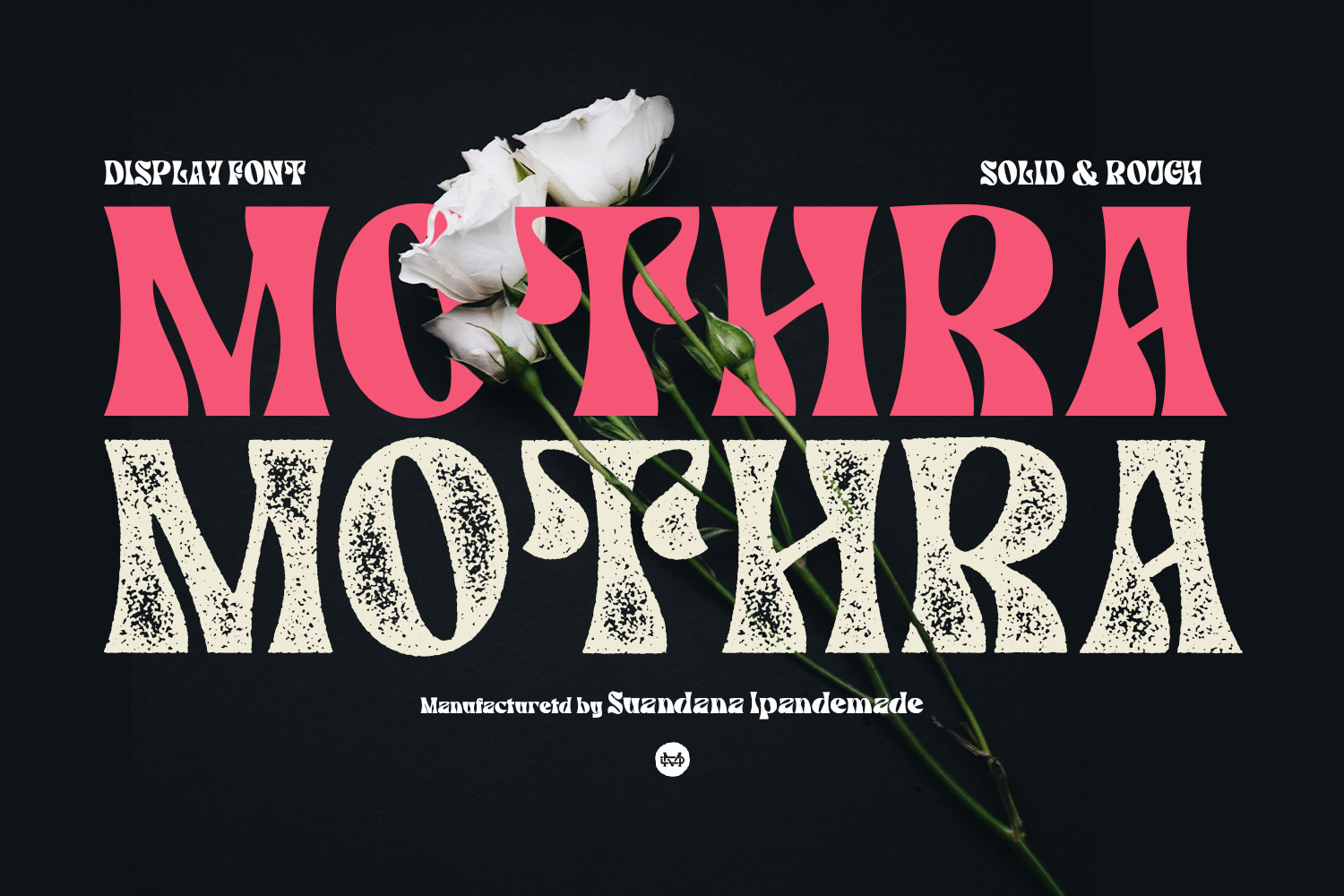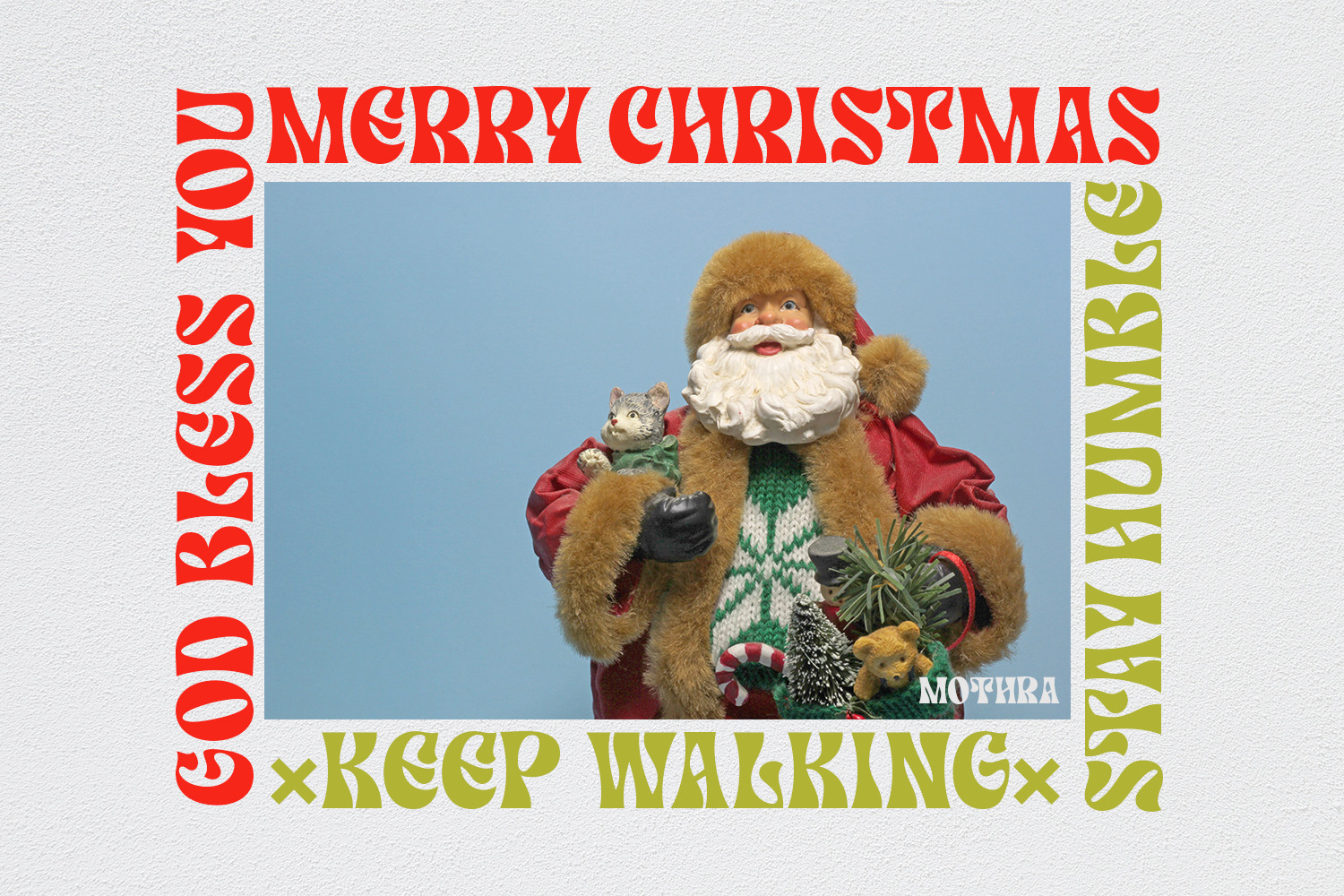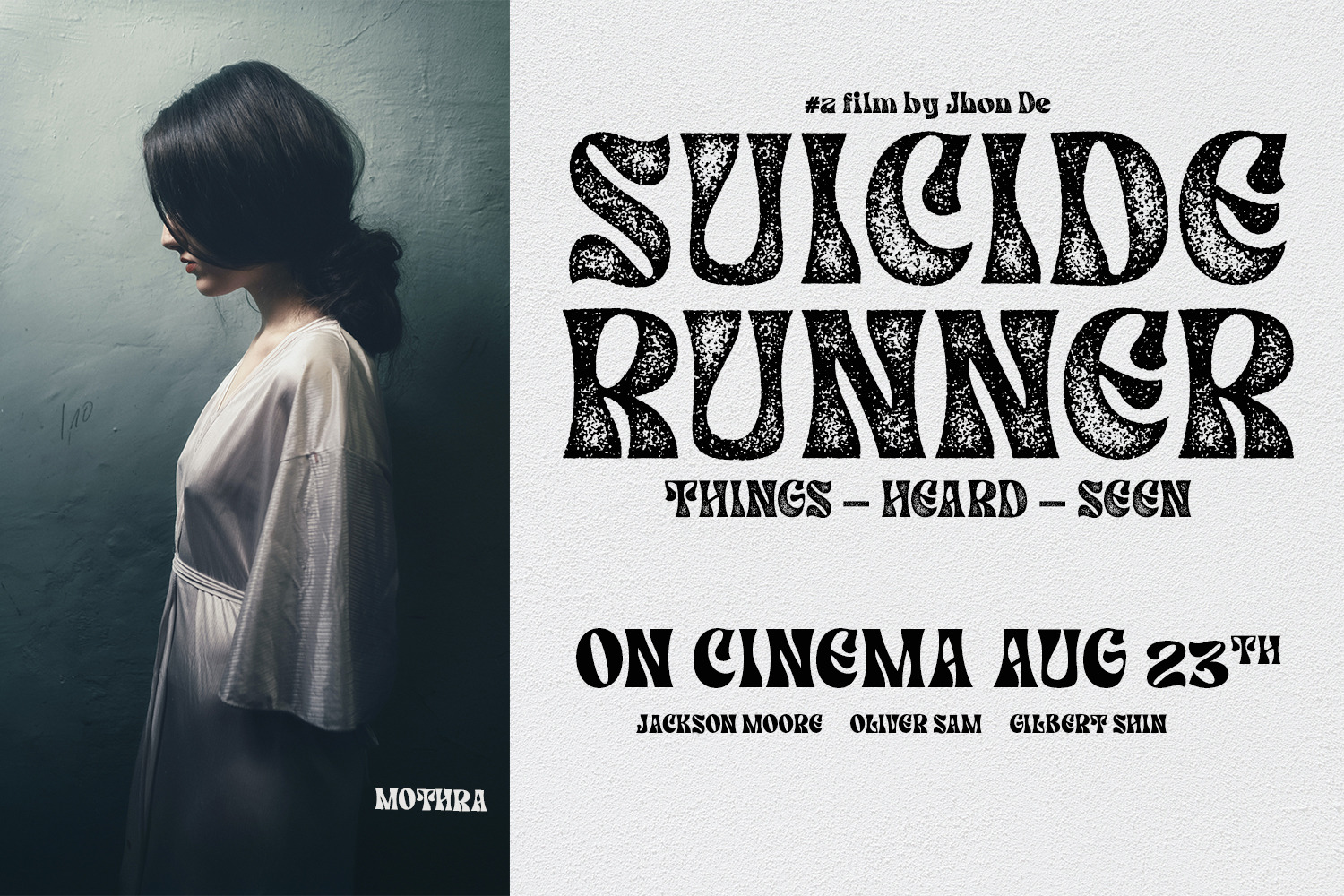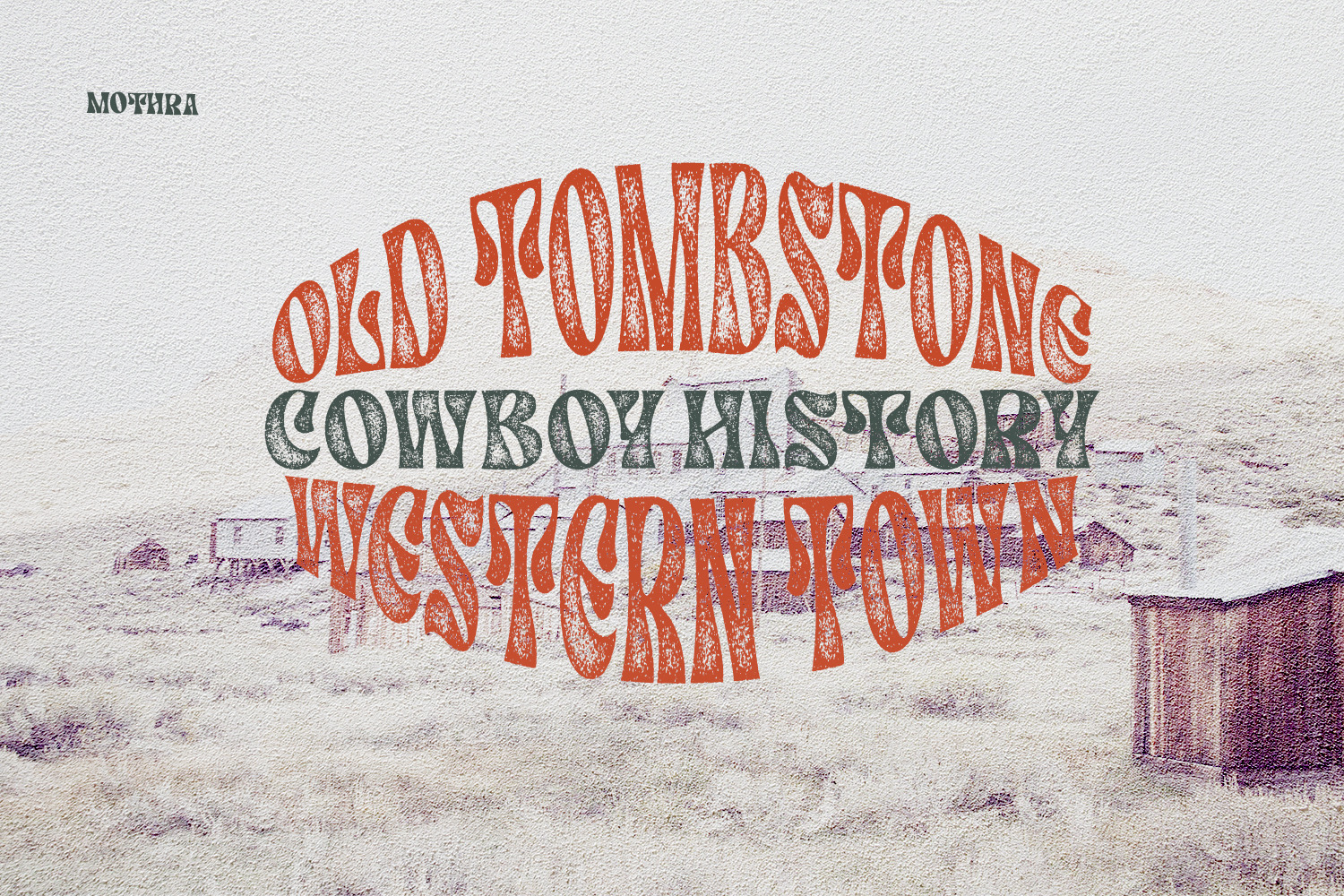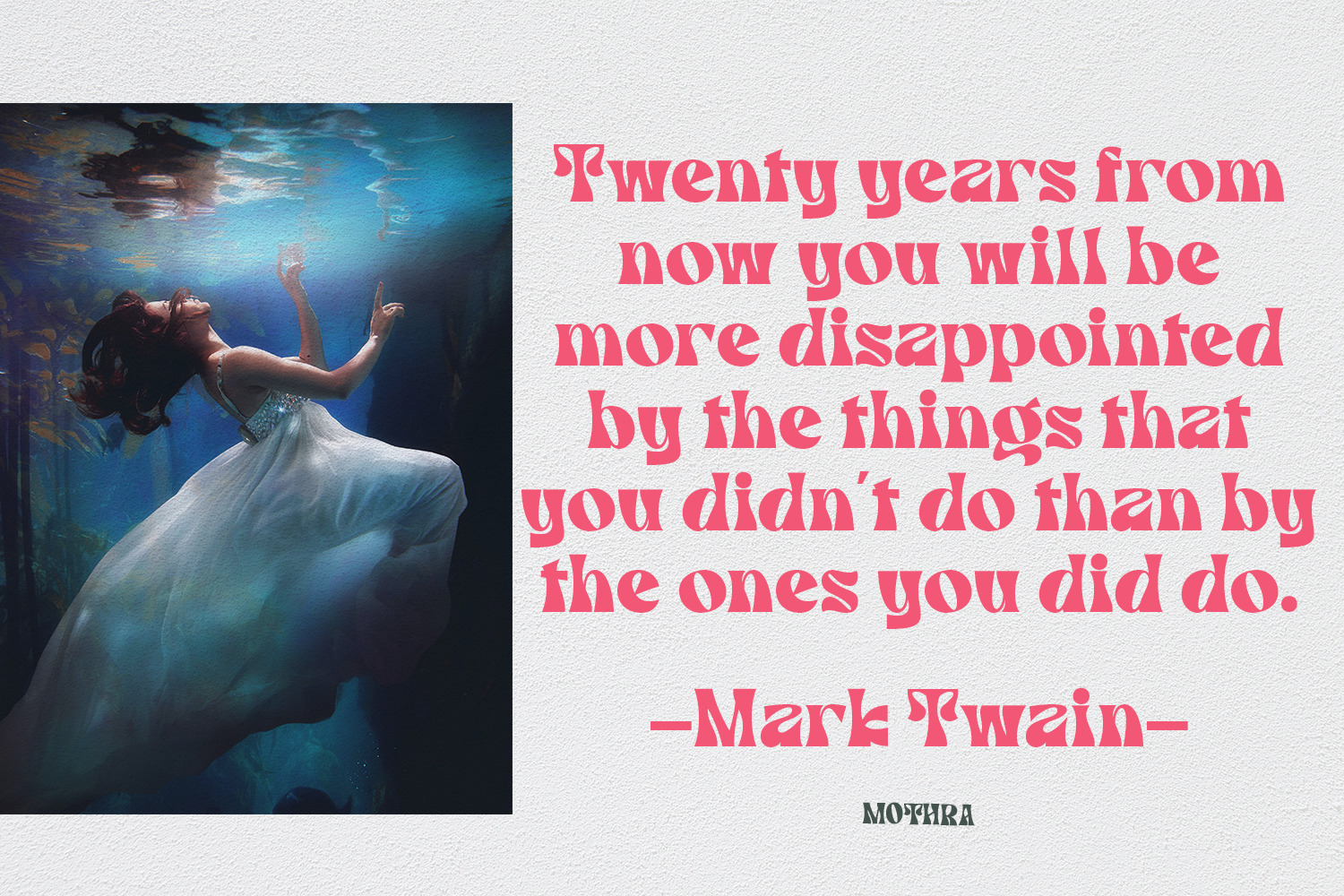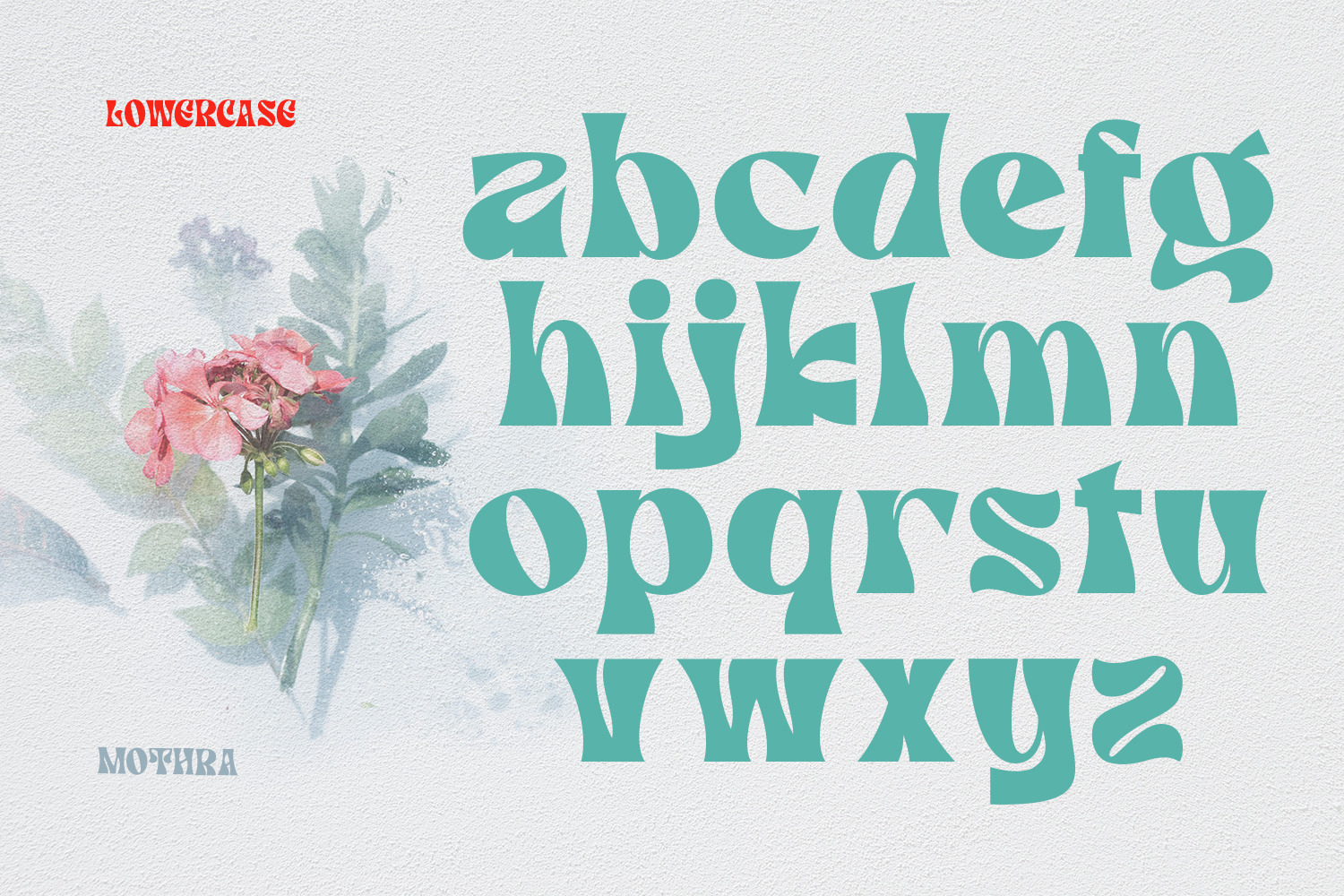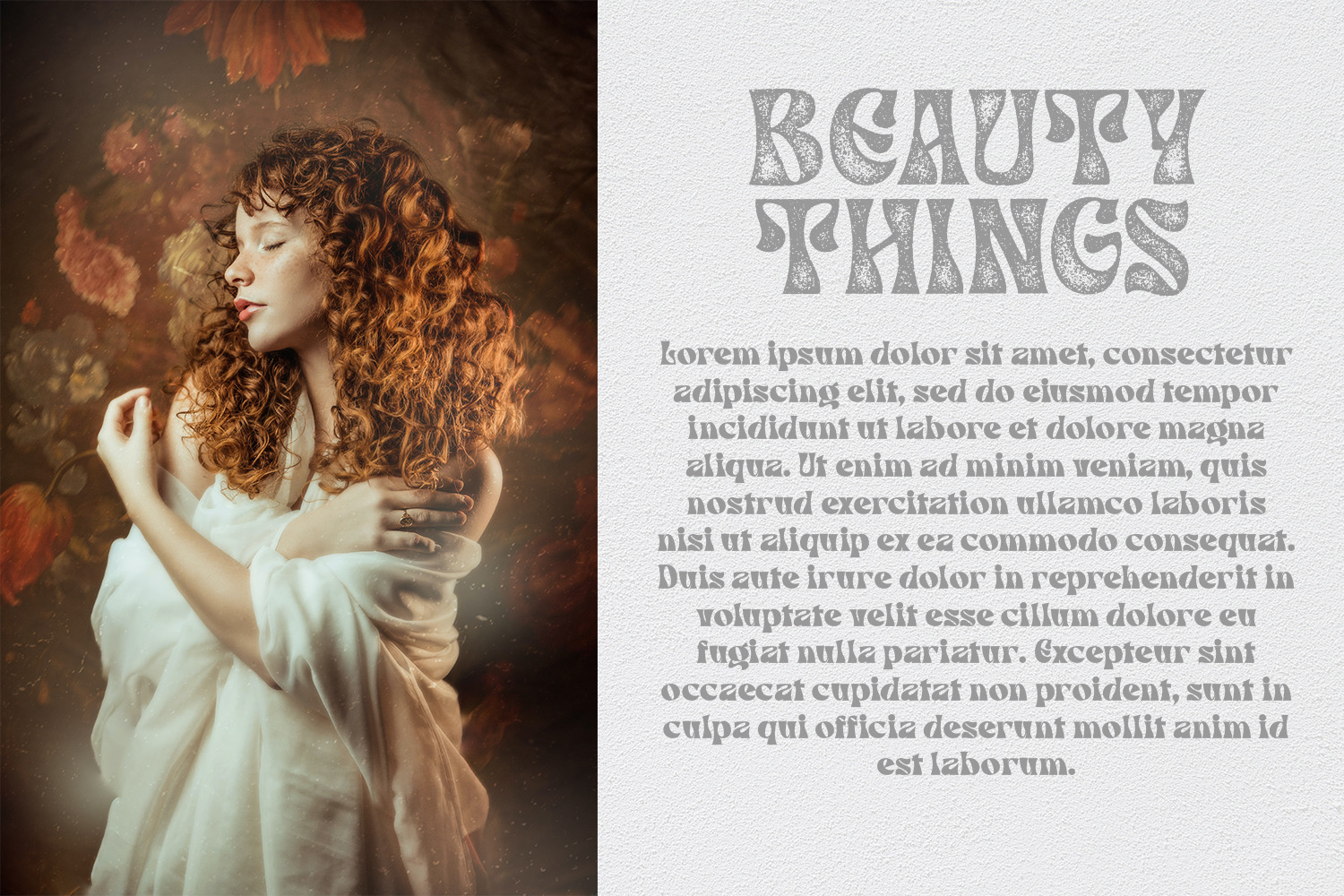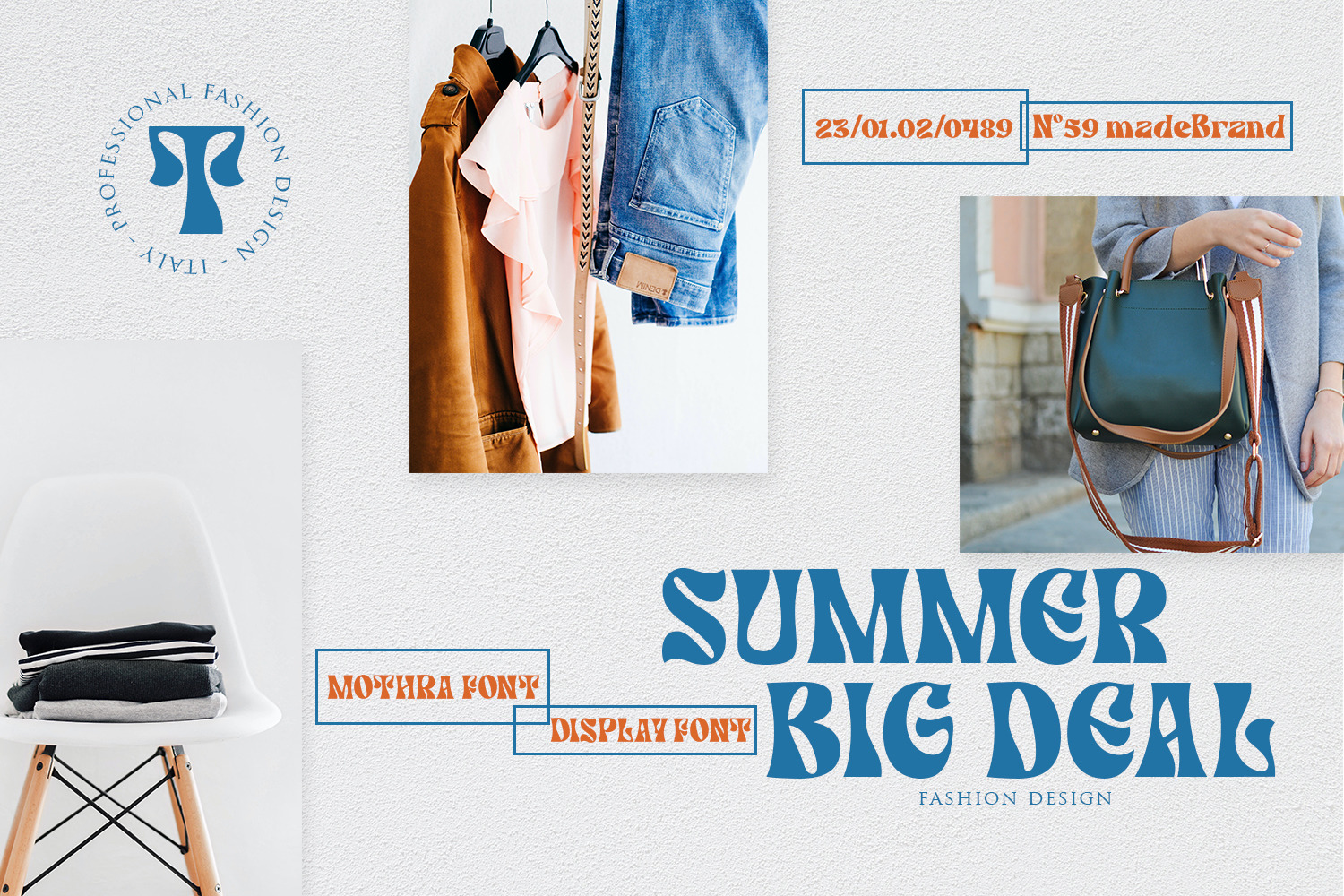
MOTHRA - Display Font
Introducing MOTHRA use this font for any branding, product packaging, invitation, quotes, t-shirt, label, poster, logo etc.
- Solid and Rough Style
- Number & Symbol
- International Glyphs